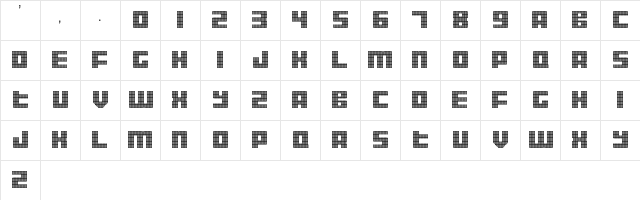
Display Gothic G Regular
| Designer | Wolf Lambert |
Design Context for Display Gothic G Typeface
Display Gothic G brings ornamental detail and strong personality to headlines and identities, where visual impact matters more than quiet functionality.
Font Pairing: Pair with a clean neutral sans-serif for body copy to let Display Gothic G's character lead without overwhelming the composition.
Pro Tip: Treat Display Gothic G as the centrepiece of your typographic hierarchy. One strong heading set in a decorative face can carry an entire layout.